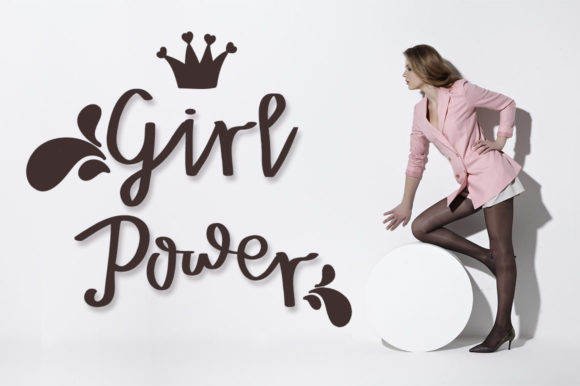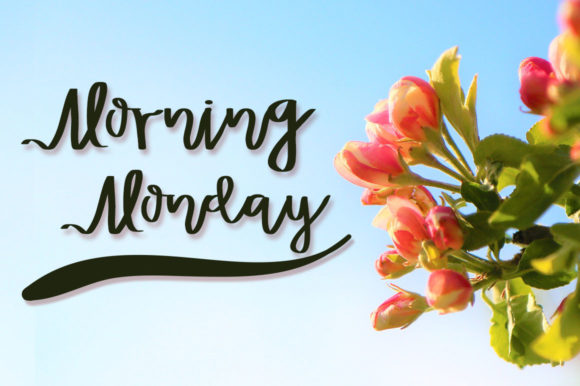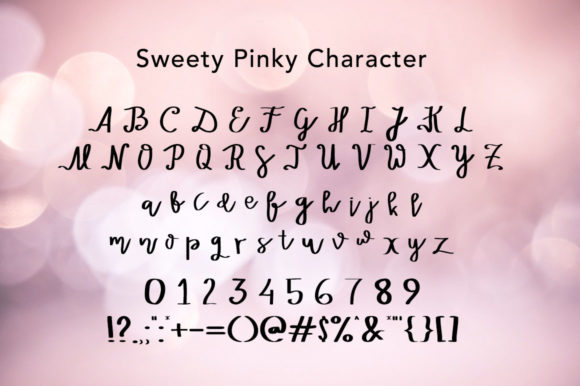
Sweety Pinky Font
About Sweety Pinky Font
Sweety Pinky is a bouncy handwritten font. It will look outstanding in any context, whether you’re looking for fonts for Instagram or calligraphy scripts for DIY projects, Sweety Pinky will turn any creative idea into a true piece of art!